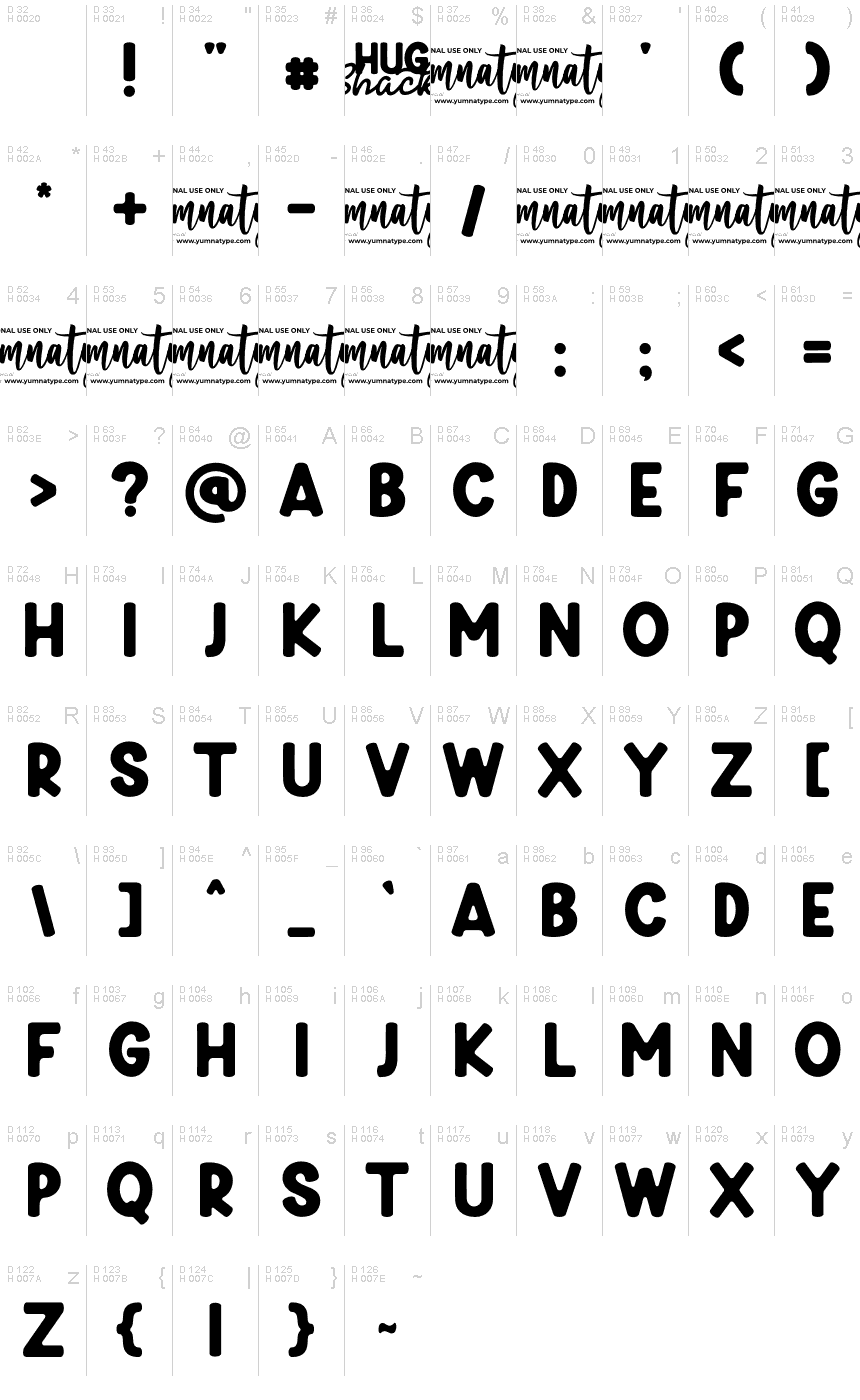
Hug Shack Personal Use
Hug Shack, a bold display font designed by the talented Yumna Family, exudes a playful and vibrant energy. With its thick strokes and eye-catching curves, this font is perfect for projects that aim to make a statement.
Its boldness adds strength and confidence to any design, making it ideal for attention-grabbing headlines, logos, and posters. Whether you're working on a children's book cover or an exciting event flyer, Hug Shack will infuse your project with charm and charisma that won't go unnoticed.